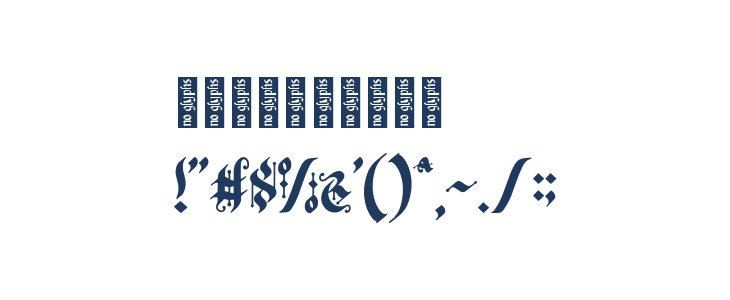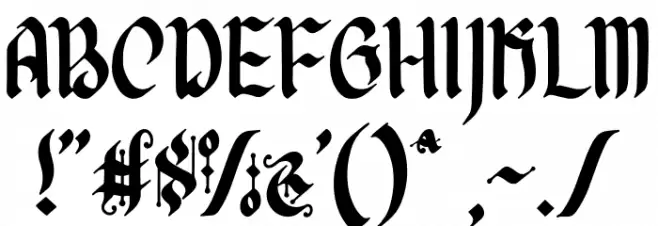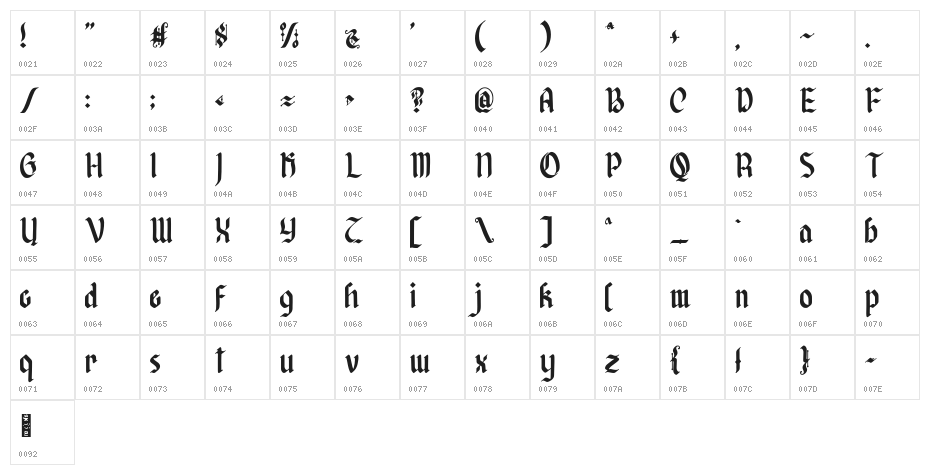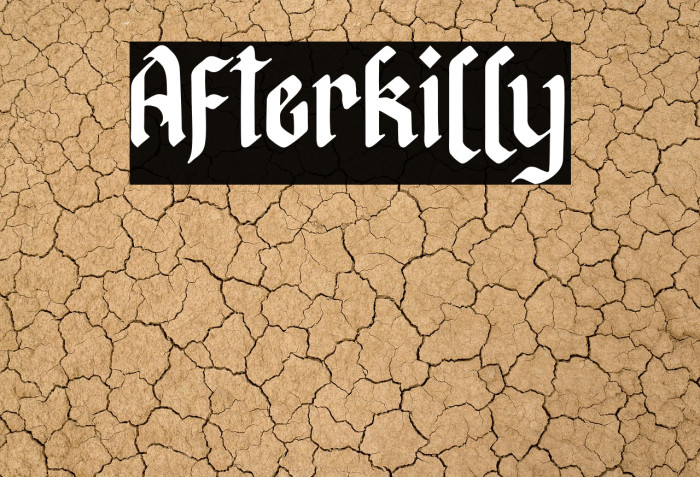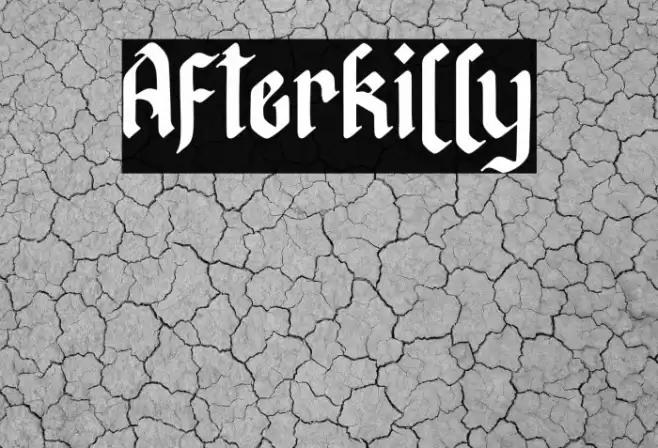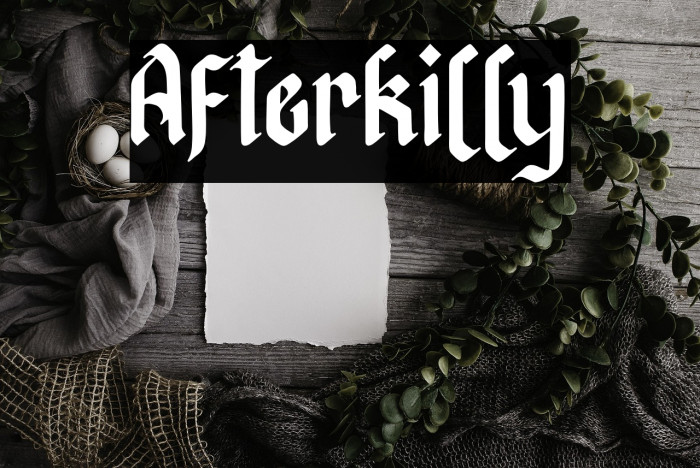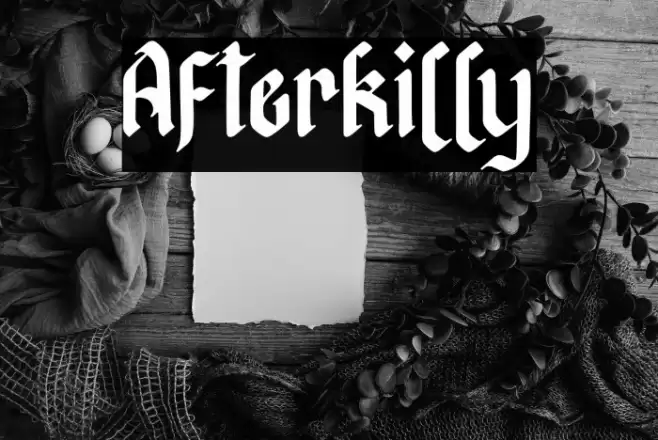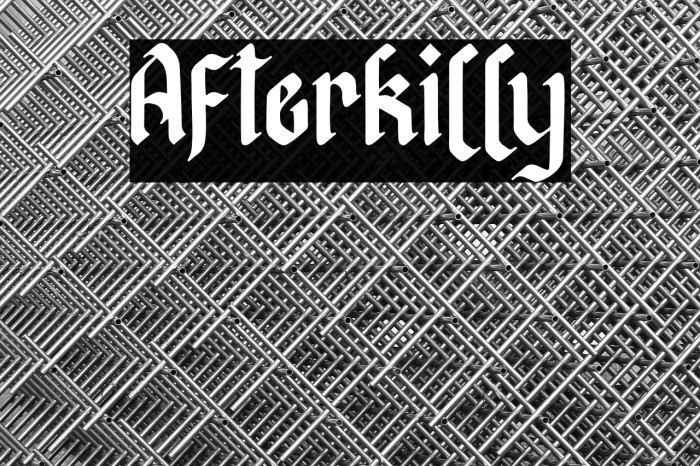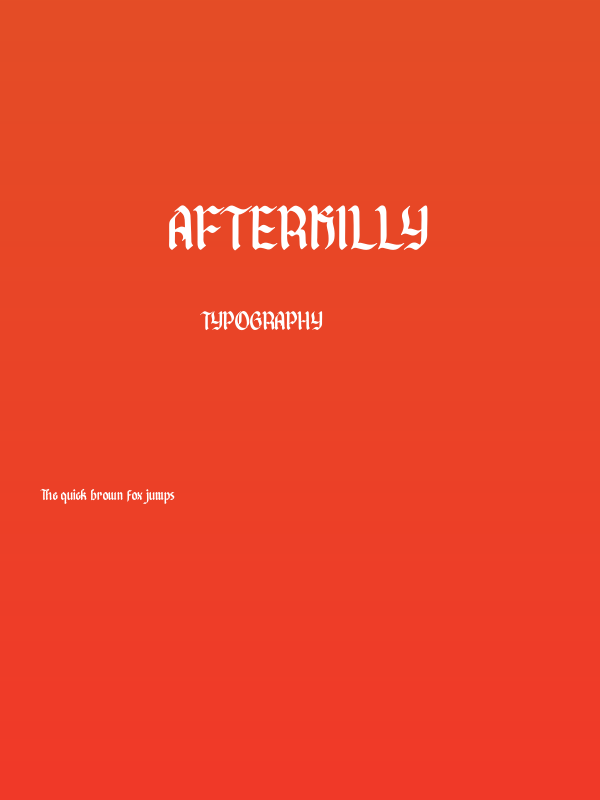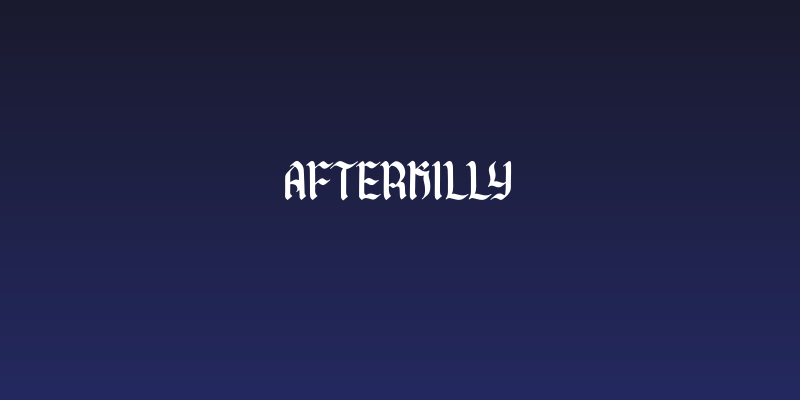
Afterkilly Font
Afterkilly Description
This font embodies the traditional and ornate characteristics of Blackletter typefaces, featuring dramatic, thick strokes and intricate details. The uppercase letters are bold and commanding, with sharp angles and pointed serifs that give them a gothic appearance. The lowercase letters maintain the same intricate style, with unique flourishes that add to the overall decorative aesthetic. The numbers and special characters are equally elaborate, ensuring consistency throughout the typeface. This font is reminiscent of medieval manuscripts and evokes a sense of history and tradition.
| Proposed Projects | Ideal for historical or medieval-themed projects, book covers, posters, and branding that requires a classic and dramatic touch. |